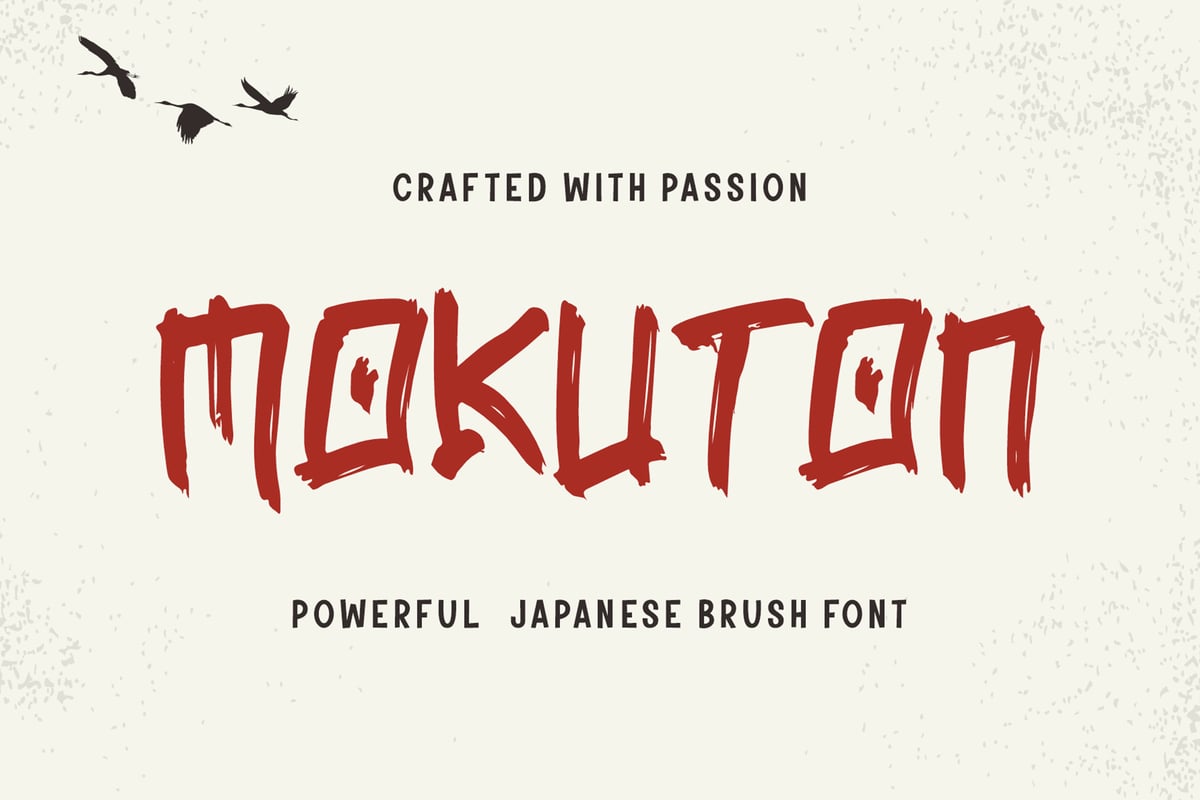
Mokuton
Mokuton is a Japanese handbrush display font inspired by traditional brush lettering and modern expressive calligraphy. Designed with strong strokes and natural ink flow, this typeface captures the essence of hand-painted characters while maintaining a bold and contemporary look. The balance between rough brush texture and structured letterforms makes Mokuton both artistic and highly usable. Each character in Mokuton is crafted to reflect the dynamic movement of a real brush. The varying stroke